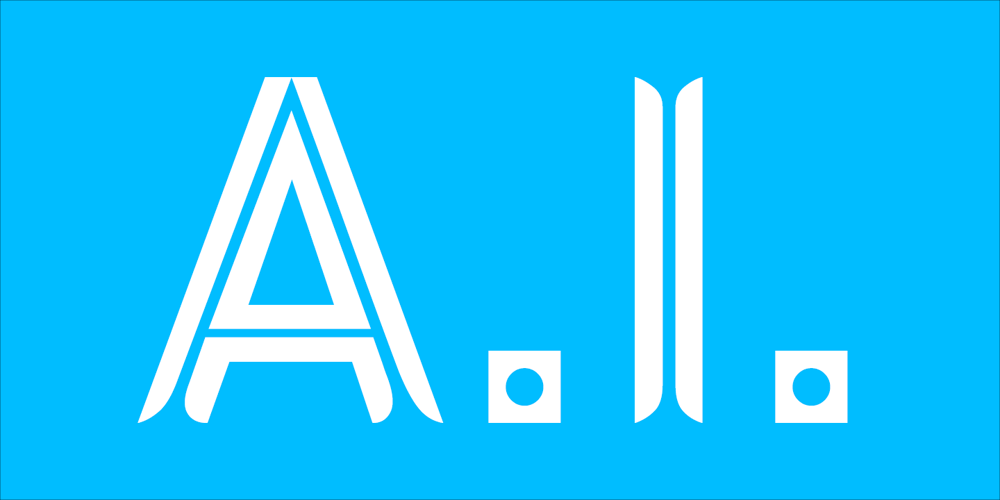
AI Font Family was designed by Yuanchen Jiang and published by Yuanchen Jiang. AI contains 1 styles and family package options. The typeface “AI” is designed base on the new relationship between Human and machine. Reflecting the concept of “Ghost in the shell” which contains typeface features from both Sans-serif and Serif font.